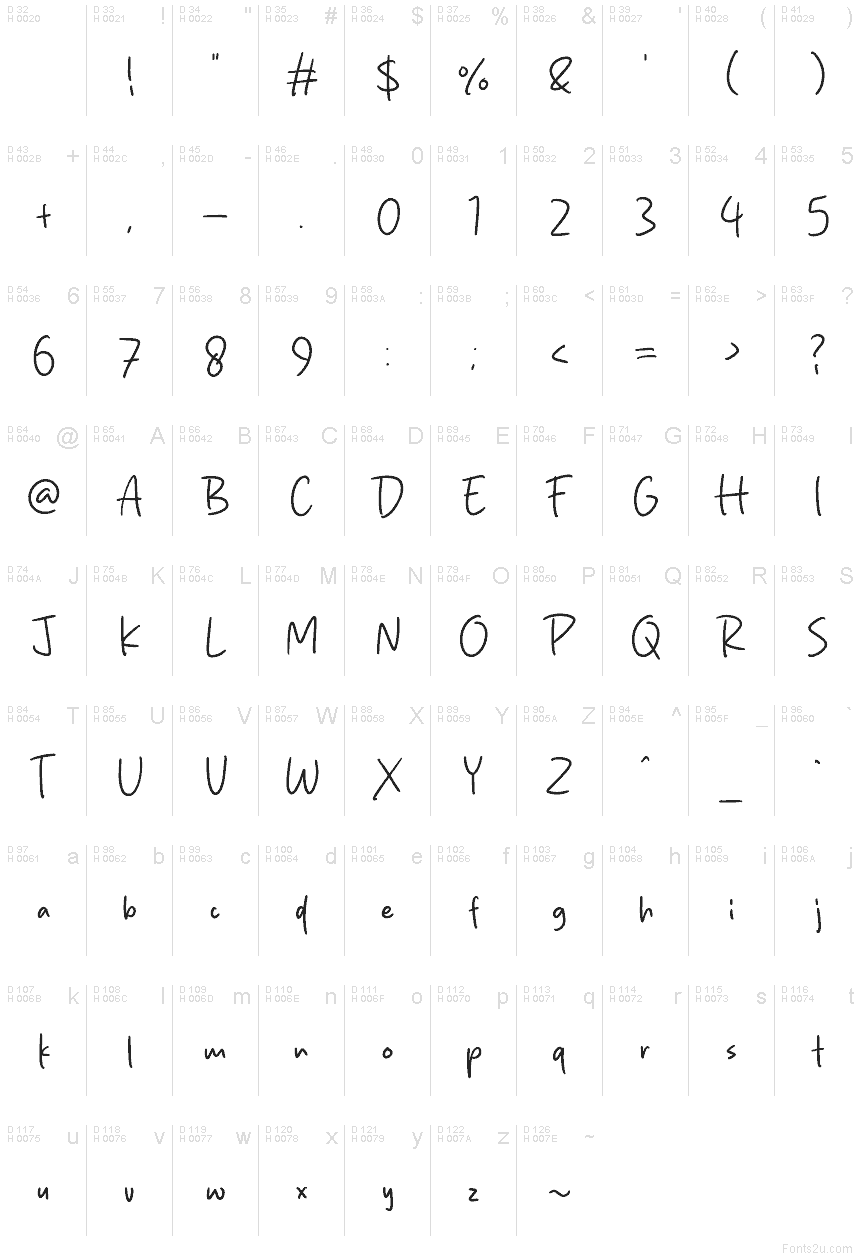
Homey Feeling
Homey Feeling font by MJType is a free handwritten font that captures the warmth of a quick note left on the kitchen counter. Its smooth monoline strokes, loose spacing, and slightly bouncy rhythm make every word feel relaxed and human, like ink from a favorite pen on soft paper. There’s just enough irregularity to feel real, but it still reads cleanly at a glance.
Using Homey Feeling, you can bring an inviting, personal touch to recipe cards, home décor prints, packaging for small-batch goods, lifestyle blogs, family photo albums, and cozy café menus. This free font shines when you use it large for headlines, then pair it with a simple sans serif for body text to keep everything clear and grounded.